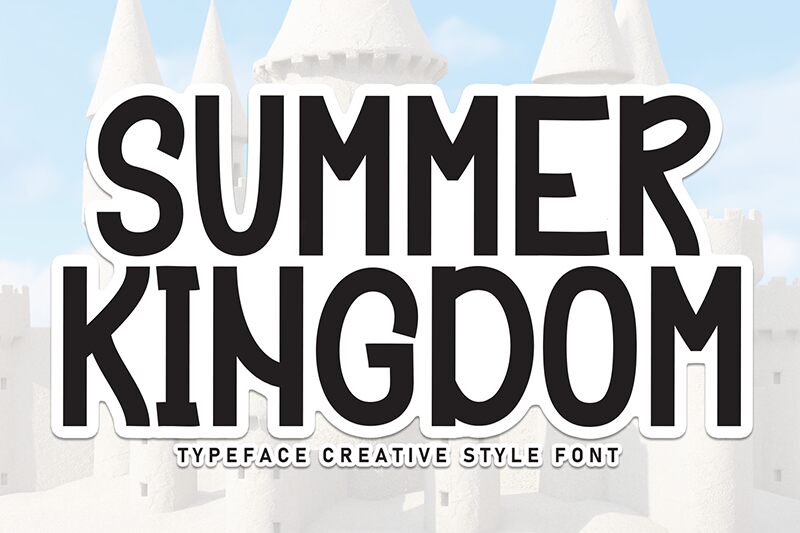
Summer Kingdom
Summer Kingdom font by Scratchones is a condensed display font with modern and decorative elements. High readability is ensured even while using Summer Kingdom’s slightly quirky letterforms that can leave quite an effect on audiences. The style combines a few geometric influences which appear through certain shapes from within the character set.
Modern design projects should benefit from this free display font all year long. Branding, packaging, advertising, signage, websites, apps, social media covers are only some of the possible use cases that designers have to choose from. Pick your favorite project and add Summer Kingdom to it right away.